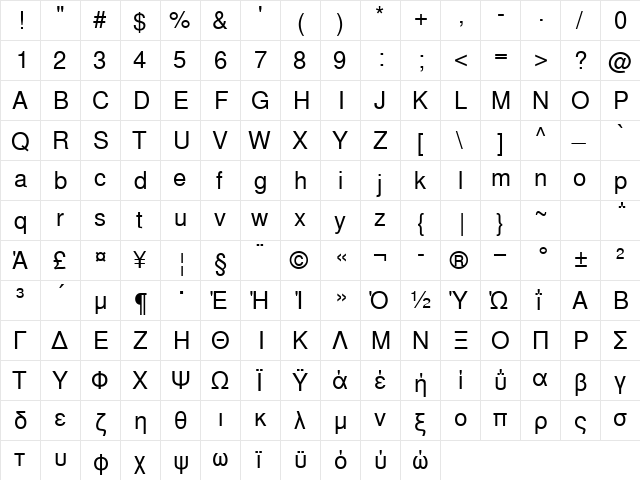
NimbusSanLGR Regular
Design Context for NimbusSanLGR Typeface
NimbusSanLGR offers clean, dependable letterforms without strong stylistic allegiance, making it a practical choice for designers who need flexibility.
Pro Tip: Pair NimbusSanLGR with a font of contrasting weight or personality to build a more expressive typographic hierarchy.